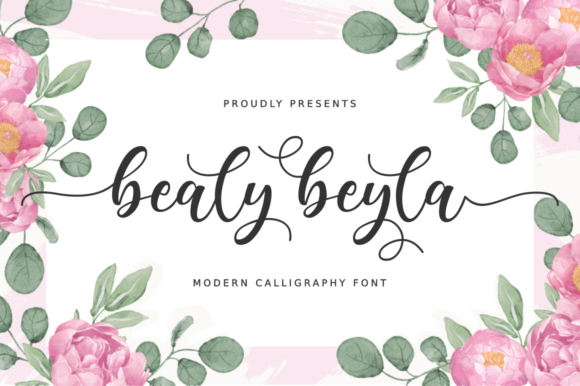
Unleashing the Artistic Potential of Handwritten Fonts
Have you ever sat at your desk, pen in hand, staring at a blank sheet of paper, waiting for inspiration to strike? For designers and creatives, this moment is all too familiar. It’s the moment when the perfect font can make all the difference. That’s where Bealy Beyla Font comes in – a stunning, elegant handwritten font that will transport your designs to new heights.
With its PUA encoded design, you’ll have access to a world of glyphs and swashes, allowing you to add a personal touch to every project. Whether you’re a seasoned pro or just starting out, Bealy Beyla Font is the perfect companion for any design journey. Its varying baseline, smooth lines, and gorgeous glyphs make it a valuable addition to any designer’s toolkit.
So, what are you waiting for? Dive into the world of Bealy Beyla Font and discover a whole new level of creativity and expression. With its stunning alternates and effortless elegance, this font is sure to elevate your designs and leave a lasting impression.
Bealy Beyla Font Key Features
• Font Family: Bealy Beyla
• Unique Characteristics: The Bealy Beyla font features a unique blend of modern and vintage elements, with intricate details and ornate flourishes, making it suitable for formal and elegant designs.
• Font Style: Script, Calligraphy, Decorative
Bealy Beyla Font Review
When I first saw the Bealy Beyla Font, I was drawn to its unique, cursive aesthetic ✨. The font’s flowing lines and elegant curves give it a high-end feel that’s perfect for luxury brands or upscale publications.
The font’s flexibility is also a major plus ✨. It’s available in a range of weights, from light to bold, making it easy to use in a variety of contexts. Additionally, the font’s opentype features allow for advanced typographic control, making it a great choice for designers who want to add a touch of sophistication to their projects.
While the Bealy Beyla Font is a great choice for many applications, it’s not without its limitations ⚠️. One major issue is the font’s limited character set, which may make it difficult to use for languages that require a wide range of characters. Additionally, the font’s complexity can make it difficult to use at small font sizes, which may limit its usability in certain contexts.
Overall, I think the Bealy Beyla Font is a solid choice for designers who want to add a touch of elegance to their projects. While it may not be the best choice for every application, its unique aesthetic and flexibility make it a great option for those who want to stand out from the crowd.
• Unique, cursive aesthetic
• Available in a range of weights
• Opentype features for advanced typographic control
• Limited character set
• Complexity can make it difficult to use at small font sizes
Tips for Getting the Most Out of Bealy Beyla Font
Use Bealy Beyla font for creative and artistic projects, such as typography, logos, and branding.
Combine Bealy Beyla with other fonts to create a unique and eye-catching design.
Experiment with different font sizes and styles to achieve the desired effect.
Bealy Beyla font is suitable for:
Logo design
Branding
Typography
Artistic projects